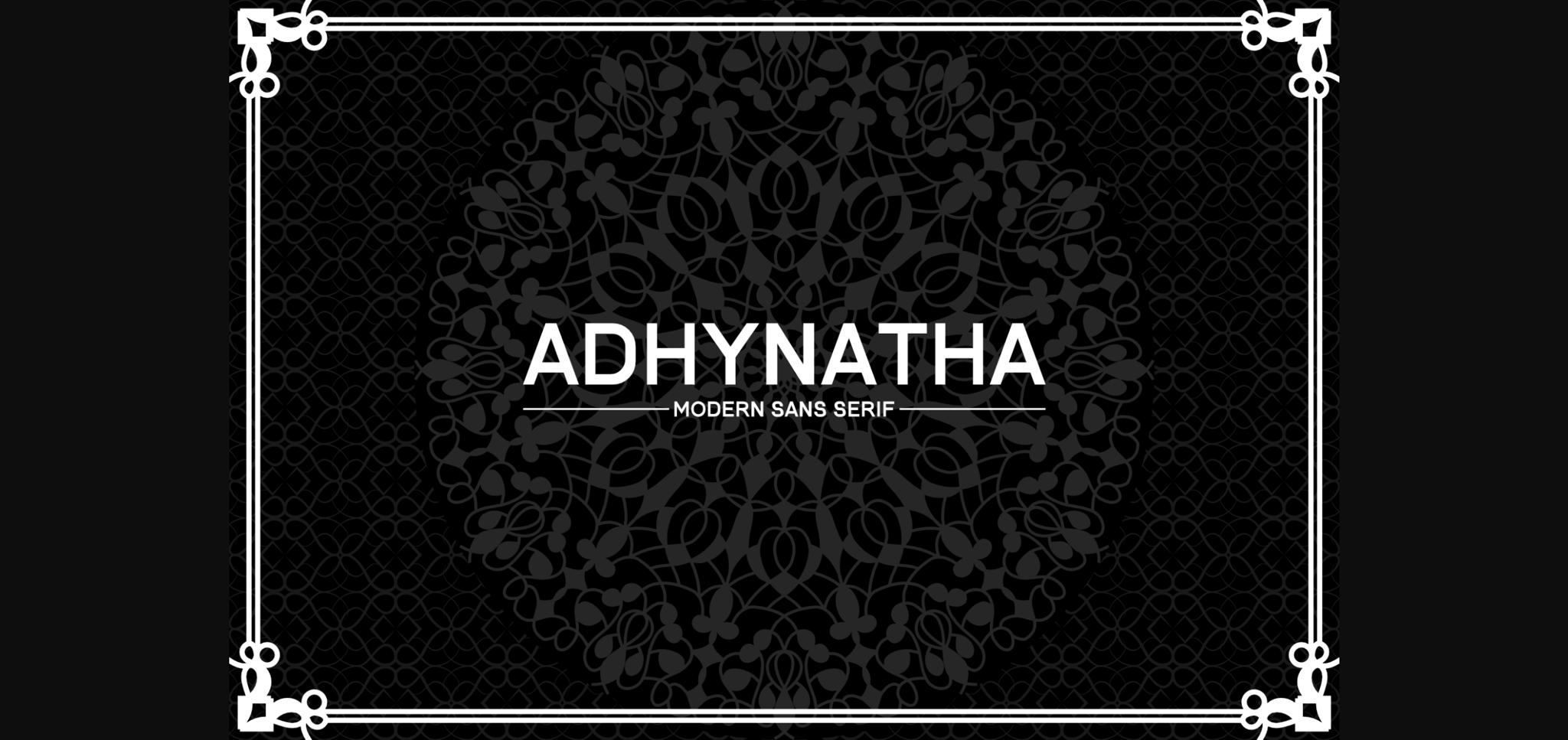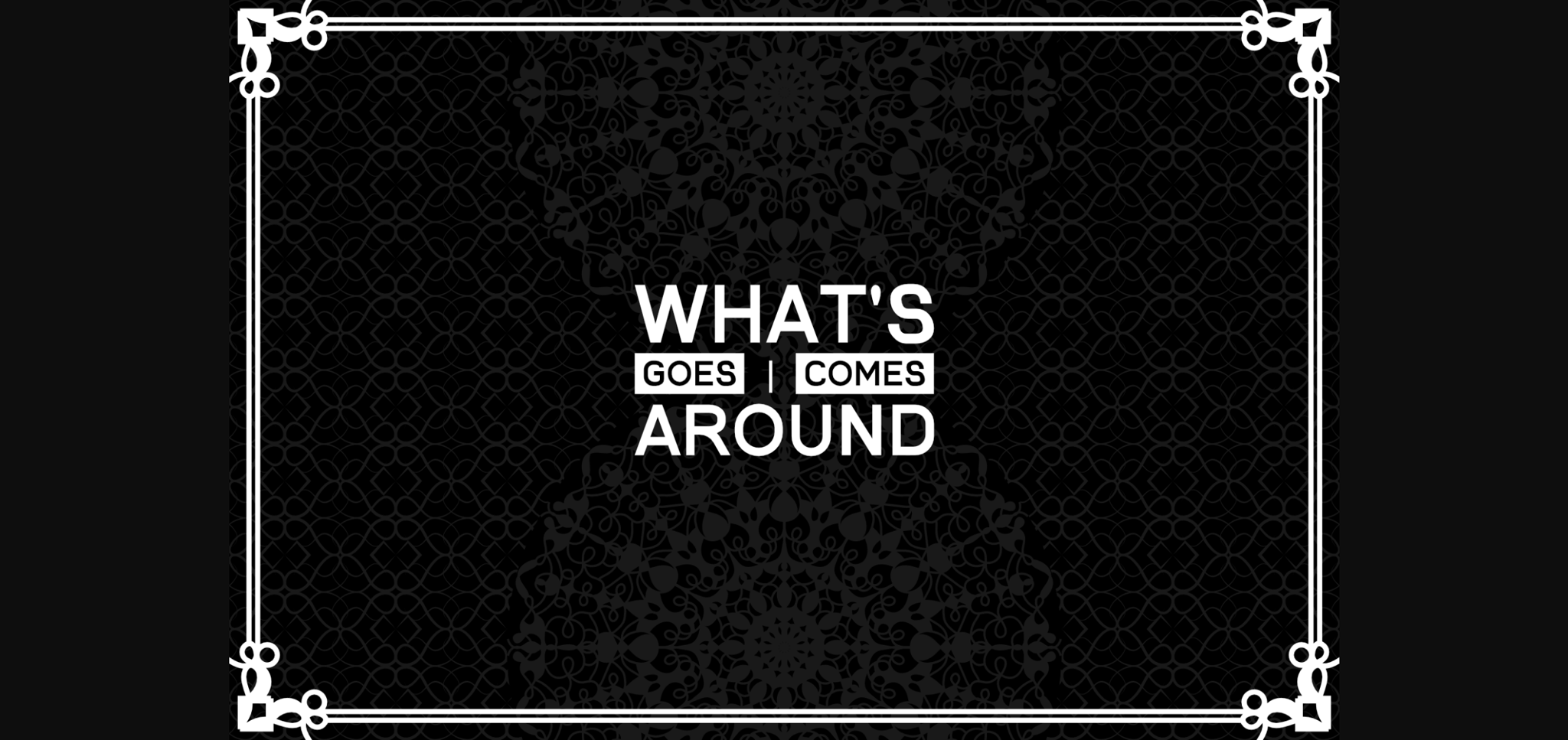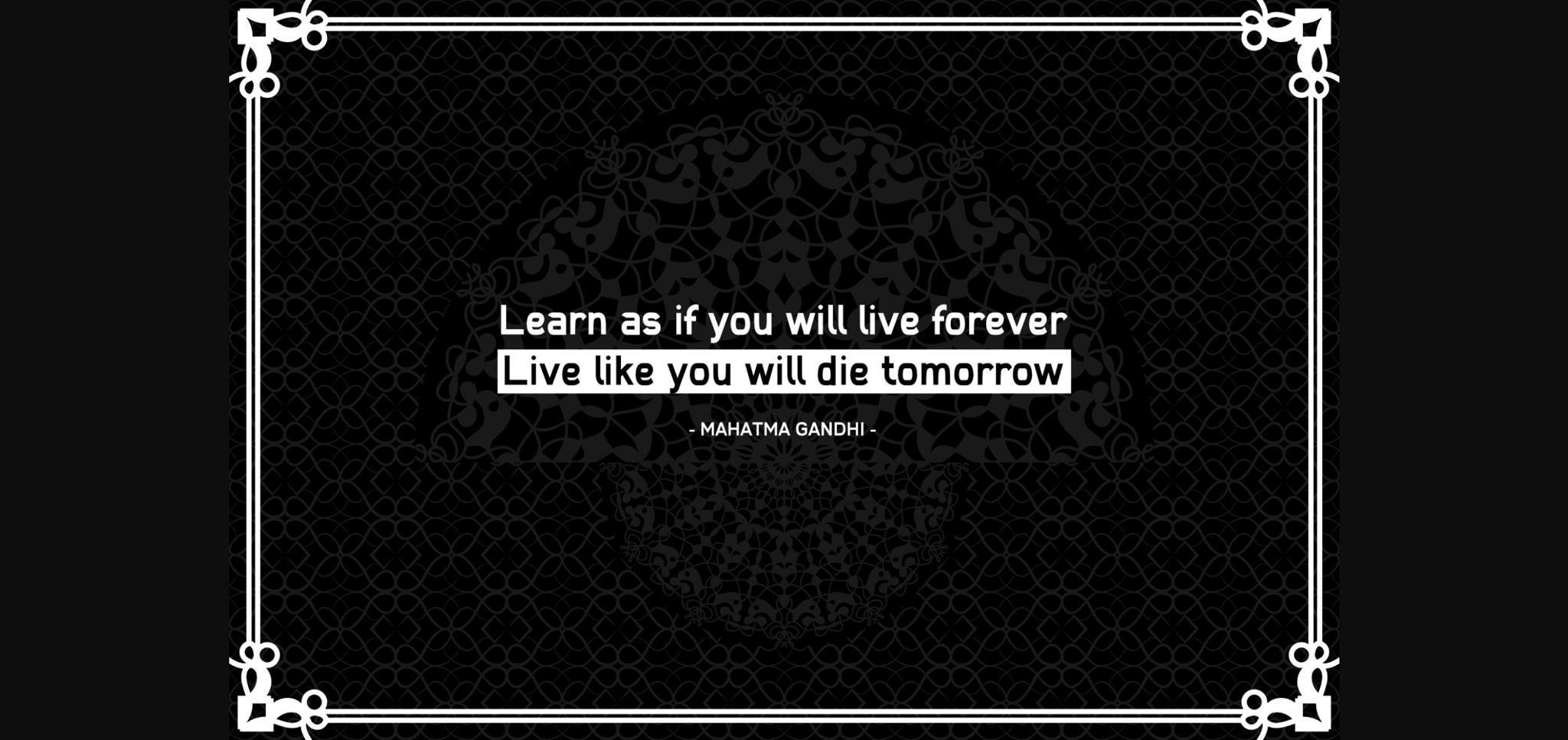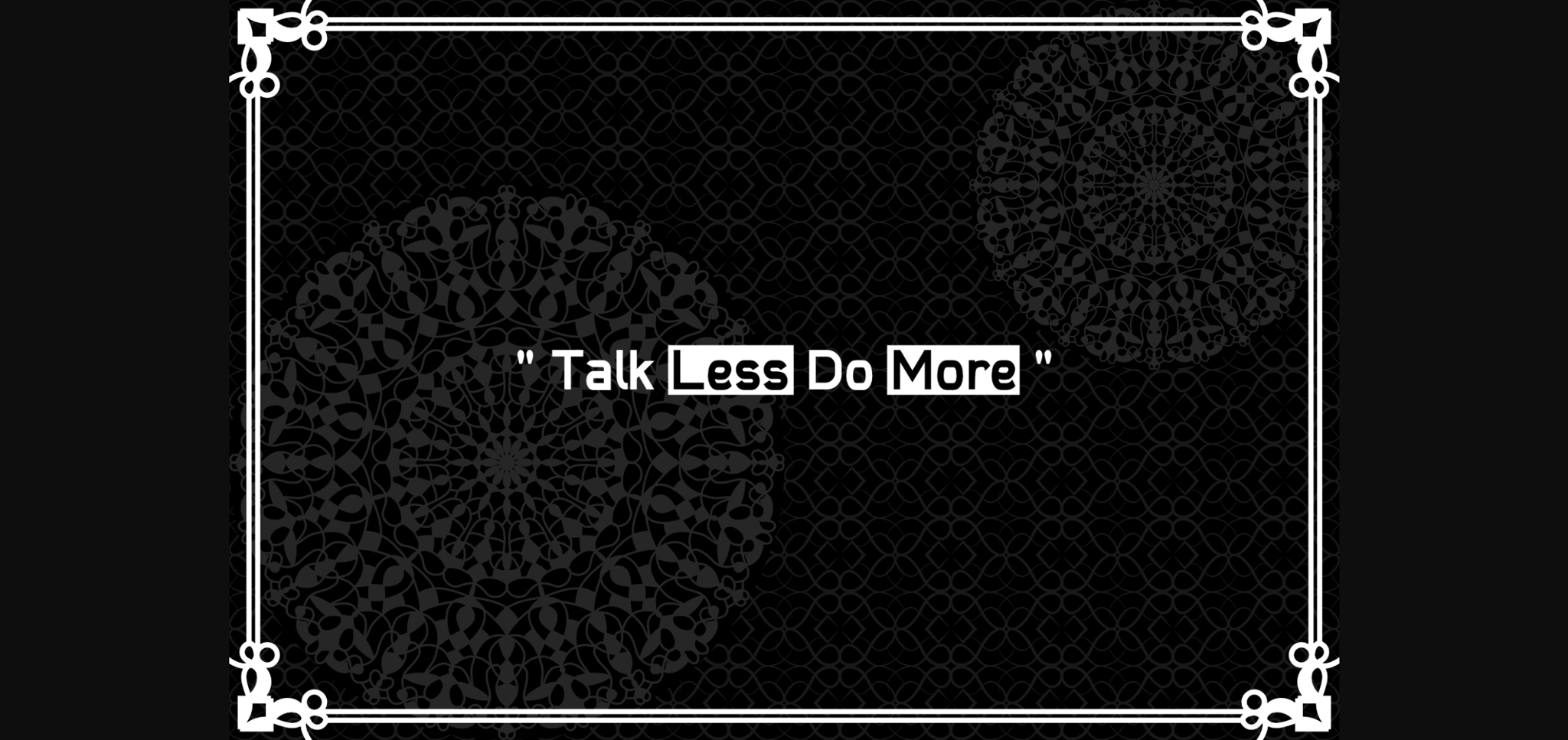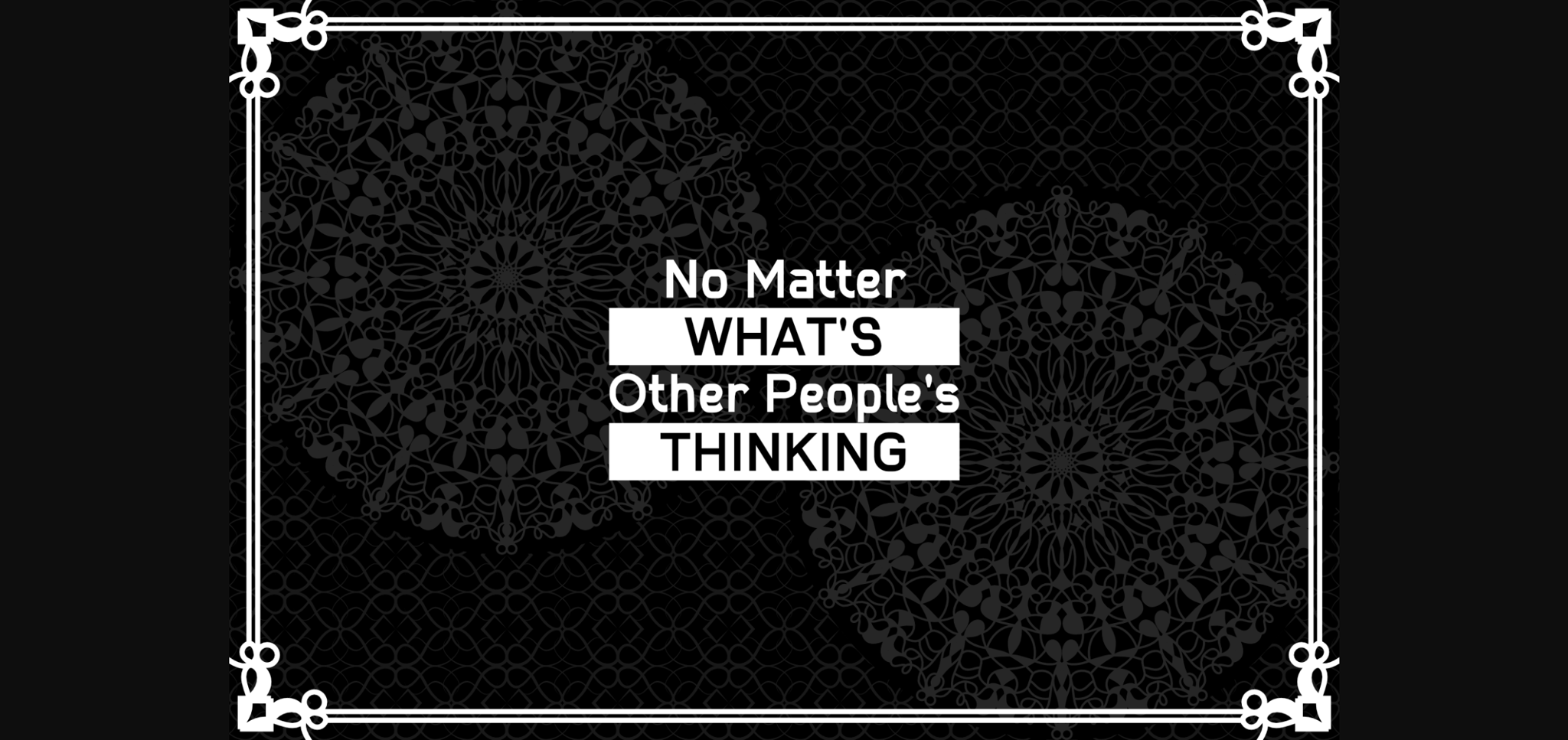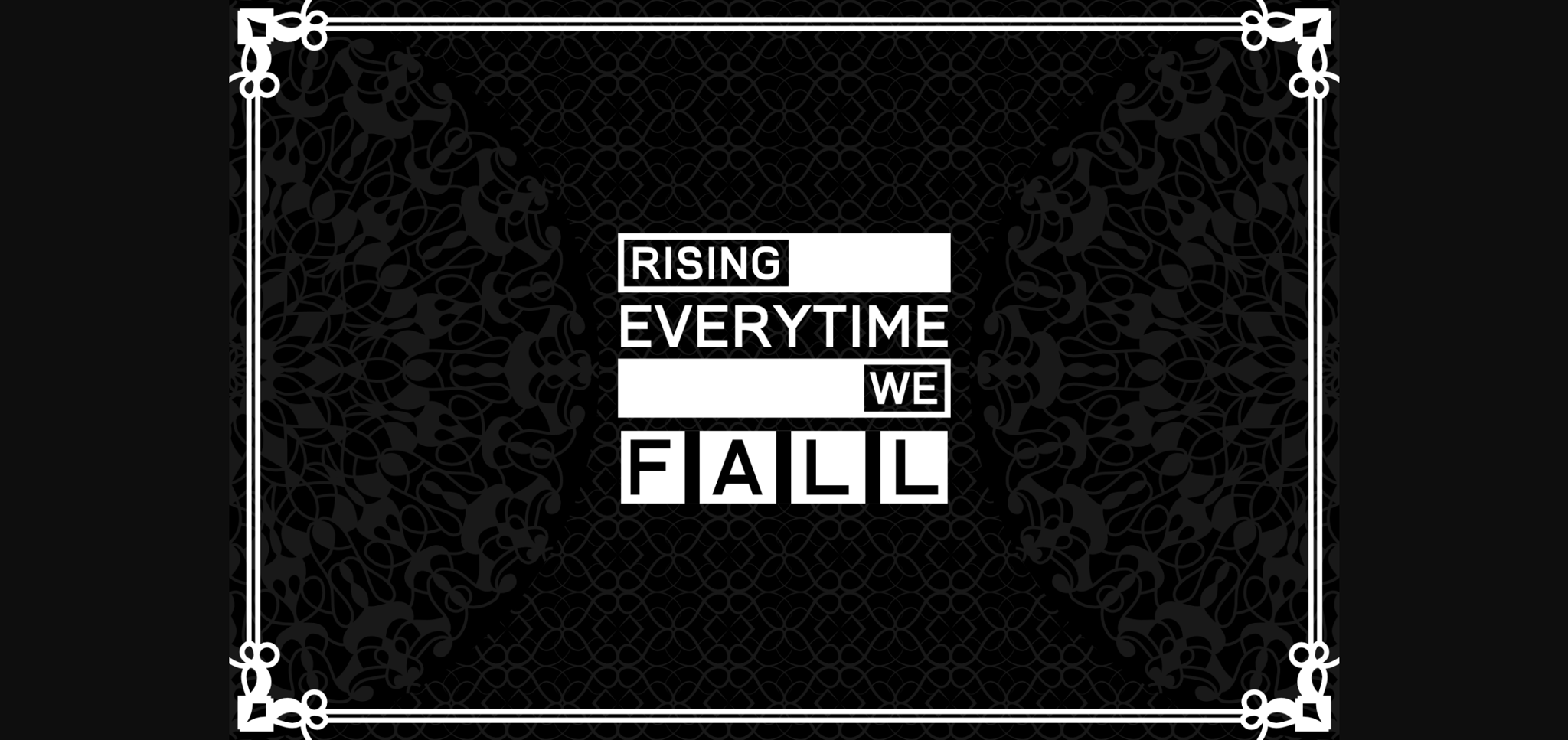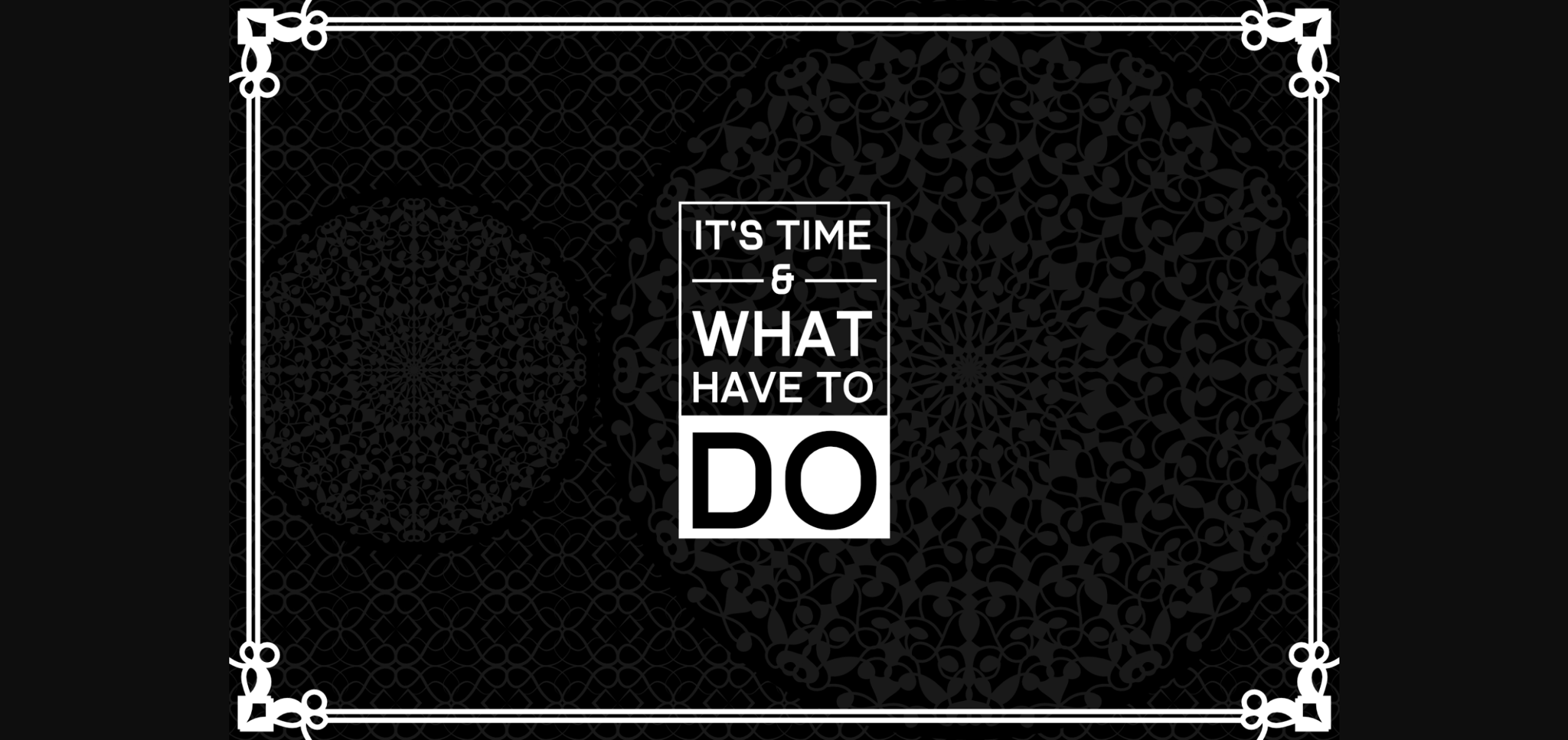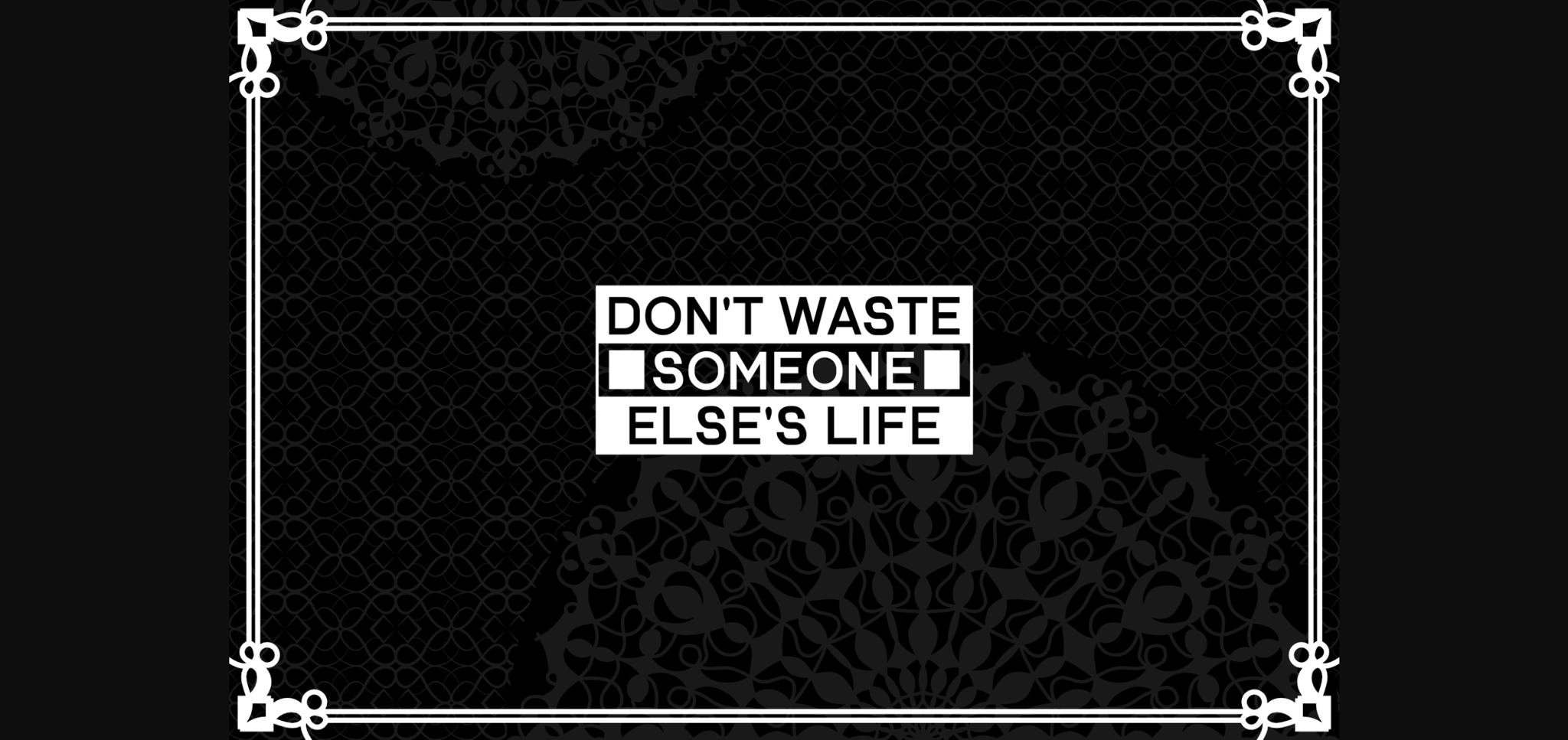
Adhynatha Font
About Adhynatha Font
Adhynatha is a sleek sans-serif font designed for clarity and modernity. With its clean lines and balanced letterforms, it exudes professionalism and versatility. Ideal for both digital and print designs, Adhynatha offers readability and sophistication, making it a perfect choice for branding, web design, and editorial projects alike.